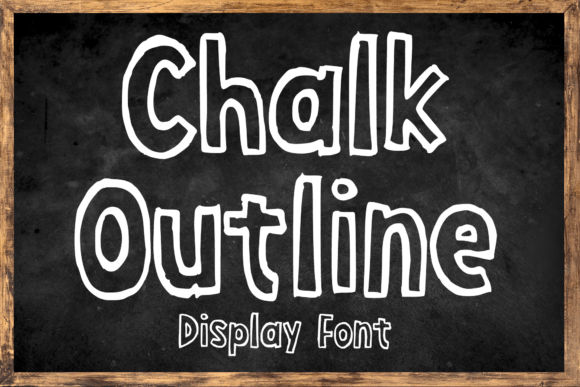
Unleashing the Artistic Side of Design with Chalk Outline Font
Have you ever found yourself staring at a blank canvas, trying to bring a creative idea to life? Maybe it’s a new design for a t-shirt, a book cover, or even a social media post. The blank space can be intimidating, but what if you had the perfect tool to spark your imagination?
That’s where the Chalk Outline Font comes in – a unique, sketchy handwritten font that adds a touch of personality to any design. Its chalk textured style is perfect for creating attention-grabbing graphics that scream for attention. Whether you’re a seasoned designer or a creative enthusiast, this font is sure to become your new favorite go-to for adding a casual, yet stylish touch to your work.
With its versatility and effortless charm, the Chalk Outline Font is a valuable asset for designers of all levels. Its ability to elevate even the simplest designs makes it an essential tool for anyone looking to add a little extra flair to their work.
Chalk Outline Font Key Features
- Unique Characteristic: The Chalk Outline Font features a unique, hand-drawn aesthetic with bold lines and subtle texture, giving it a distinctive and eye-catching appearance.
- Letterforms: The font’s letterforms are designed to be highly legible, with clear and precise lines that make it easy to read at both large and small sizes.
- Font Weight: The Chalk Outline Font is available in a range of font weights, from Light to Bold, allowing designers to achieve a variety of visual effects and moods.
Chalk Outline Font Review
Overall, I think the Chalk Outline Font has some great qualities, but also a few areas for improvement.
- Unique aesthetic: The font’s distressed, chalk-like appearance adds a touch of whimsy and personality to any design.
- Good for creative projects: The font’s playful feel makes it perfect for creative projects, like children’s books, advertising campaigns, or social media graphics.
- Customizable: The font can be easily customized to fit the specific needs of a project, from adjusting the color to modifying the outline style.
- Readability issues: The font’s distressed appearance can sometimes make it difficult to read, especially at smaller sizes or in certain lighting conditions.
- Limited font styles: While the font can be customized, it’s still limited in terms of available font styles, which may not be suitable for all projects.
- Not suitable for formal projects: The font’s playful, creative vibe may not be suitable for formal projects, like academic papers or business reports.
The Chalk Outline Font is a fun and creative addition to any design project. While it has its limitations, its unique aesthetic and customization options make it a great choice for the right projects. With a little caution and planning, this font can add a touch of personality and whimsy to even the most mundane designs.
For a distressed look, experiment with bolding the text and adjusting the font size.
For a more realistic effect, add texture and shading to your text layer.
For a bold look, use the Chalk Outline Font in combination with a contrasting background color.
Use the Chalk Outline Font for:
- Distressed or vintage-themed designs.
- Adding a touch of nostalgia or retro flair.
- Creating eye-catching headings or titles.
Experiment with different font sizes, colors, and effects to achieve a unique look.